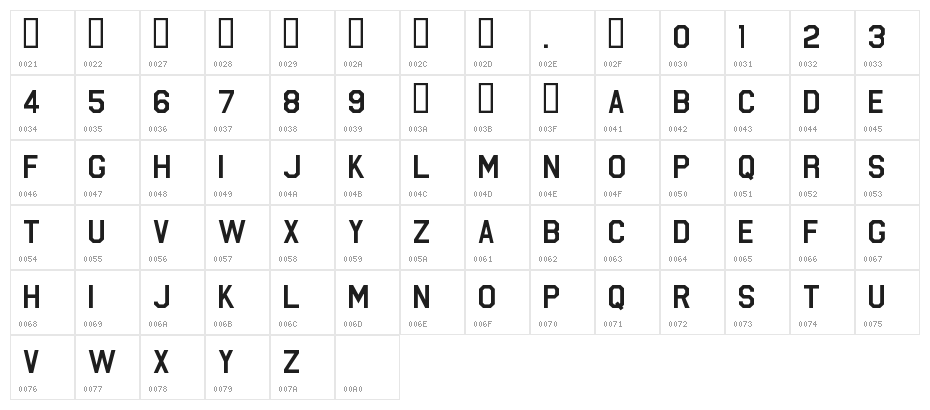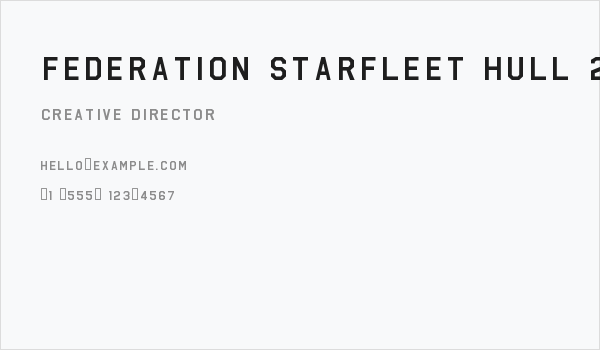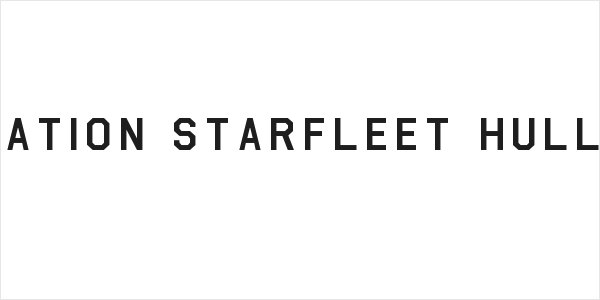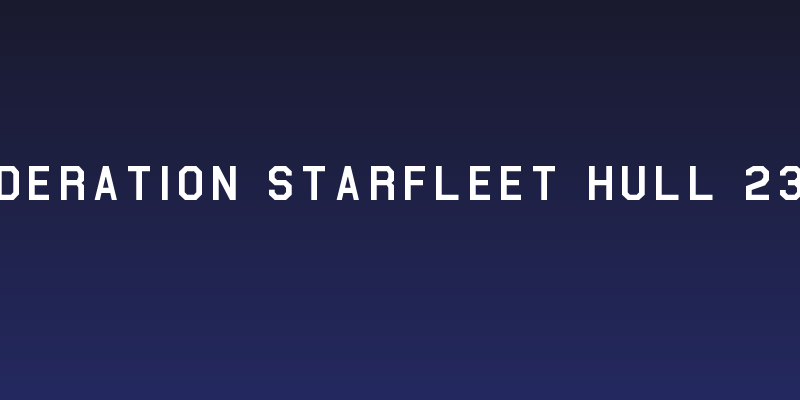
Federation Starfleet Hull 23rd Font
Federation Starfleet Hull 23rd Description
This font features a bold, geometric design with a futuristic and technical appearance. The characters are constructed with straight lines and sharp angles, giving them a mechanical and industrial feel. The uppercase letters are uniform in height, while the numbers maintain a consistent style that complements the alphabet. The font's design is reminiscent of science fiction themes, making it ideal for projects that require a modern and sleek aesthetic. The special characters are also designed to match the overall style, ensuring a cohesive look across all text elements.
| Proposed Projects | Ideal for science fiction themes, technology branding, movie posters, and video game titles. |